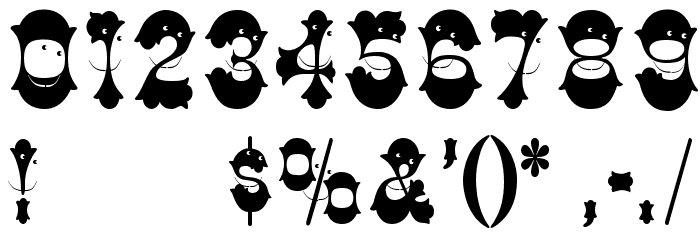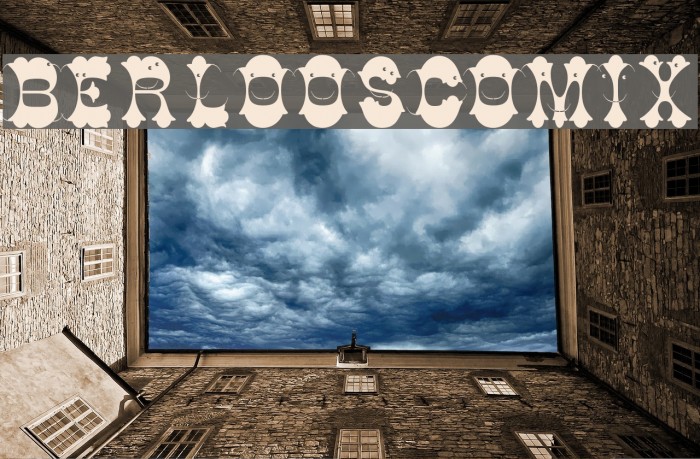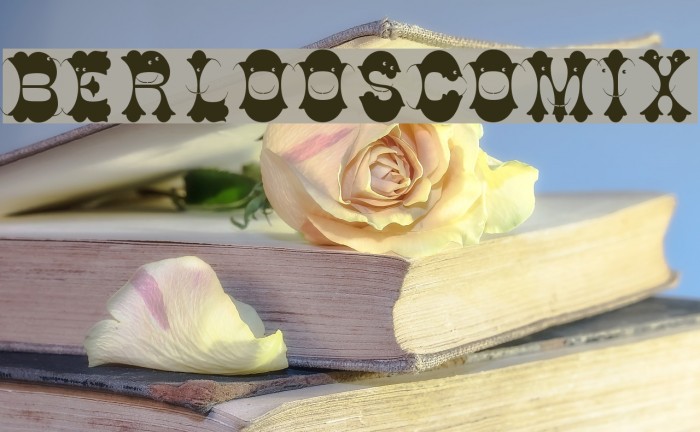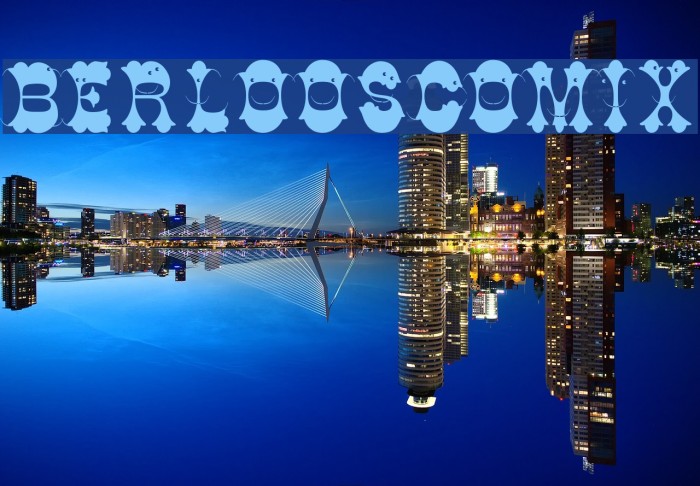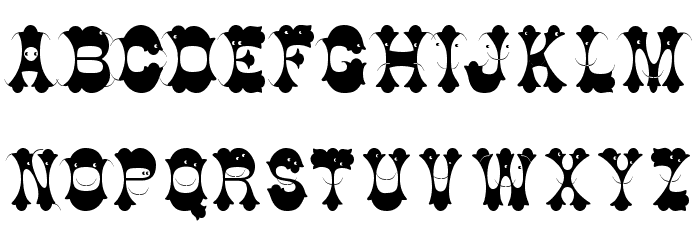
BerloosComix Font
This playful and whimsical font features characters that are creatively designed with cartoon-like faces and elements integrated into each letter and number. The bold and rounded shapes give it a friendly and approachable appearance, making it ideal for projects that require a fun and lighthearted touch. The unique design of each character adds a sense of individuality and charm, making it stand out in any creative project. The font's decorative style is perfect for children's books, comic strips, or any project that aims to capture a sense of humor and imagination. The characters are tightly spaced, enhancing the cohesive and compact look of the text.
A playful, cartoon-inspired font with bold, rounded characters featuring whimsical designs.
• Proposed Projects: Ideal for children's books, comic strips, playful branding, and creative posters.
• Category: Decorative/Display
• Overall Style: Playful, Whimsical, Cartoon
• Use Case: Headlines, Logos, Posters